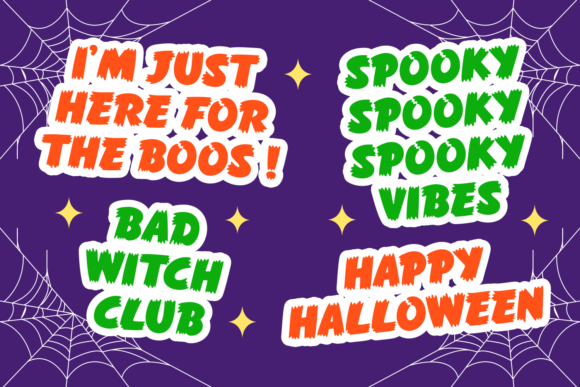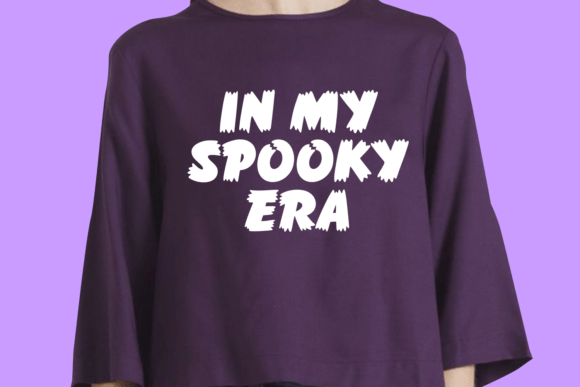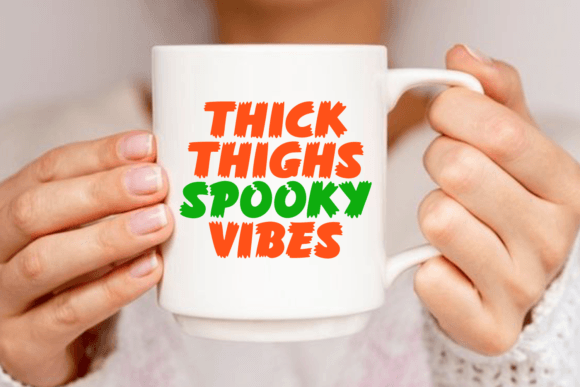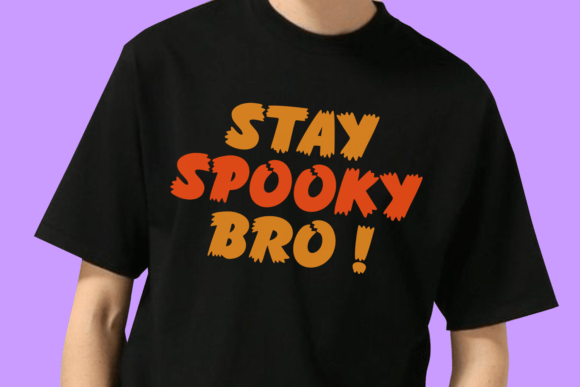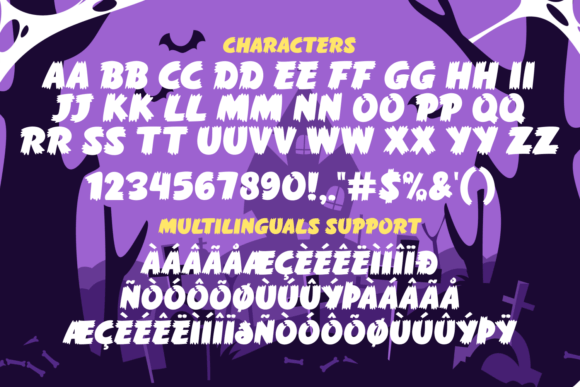
Unveiling the Mystique of Freaky Ghost Font
Do you remember the thrill of rummaging through your grandfather’s attic, uncovering old trunks and dusty boxes filled with mysterious artifacts? The eerie feeling of being transported to a bygone era, where the air was thick with secrets and the whispers of the past seemed to echo through the walls? As designers, we’re always on the lookout for that perfect design resource to evoke such emotions and transport our audience to a world of wonder.
Enter the enigmatic Freaky Ghost Font, a bewitching bold font that embodies the essence of a haunted Halloween night. With its stylish, playful retro vibe, this versatile display font is the perfect addition to any spooky project, from greeting cards to book covers, and even apparel and mug designs.
Key Features of Freaky Ghost Font
- Unique, spooky design ideal for creative projects, Halloween-themed designs, and horror movies.
- Comes with a transparent background, allowing for easy customization and seamless integration into various design resources.
- High-quality font with crisp, clear lines and intricate details, perfect for use in posters, flyers, and other promotional materials.
- Perfect for adding a touch of eeriness and mystique to any design project, from spooky invitations to haunted house decorations.
Honest Review: Freaky Ghost Font
I recently stumbled upon the Freaky Ghost Font, and I’m excited to share my thoughts on this design resource. As a designer, I appreciate fonts that add a unique touch to my creative projects.
What works well about the Freaky Ghost Font is its versatility. The font comes in a range of weights and styles, making it easy to use in various design contexts. The transparent background feature is also a plus, allowing for seamless integration with other design elements. ✨
While the Freaky Ghost Font is a great addition to any design library, there are a few limitations to consider. ⚠️ The font may not be suitable for all design projects, particularly those requiring a more traditional or formal tone. Additionally, the font may not be compatible with older software or systems.
Overall, I’m impressed with the Freaky Ghost Font. It’s a great resource for designers looking to add a touch of creativity to their projects. Whether you’re working on a personal or professional project, this font is definitely worth considering.
Freaky Ghost Font
Tips for Getting the Most Out of Freaky Ghost Font
To get the most out of Freaky Ghost Font, experiment with different font sizes, colors, and layering techniques. You can also combine it with other design elements to create unique and eye-catching designs.
Freaky Ghost Font is perfect for creating spooky or eerie designs, such as Halloween-themed graphics or horror movie posters. It’s also great for creating unique and creative titles or headings for presentations or documents.